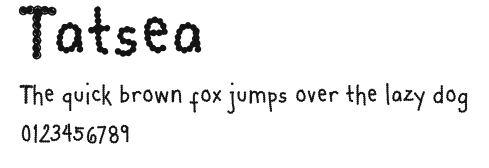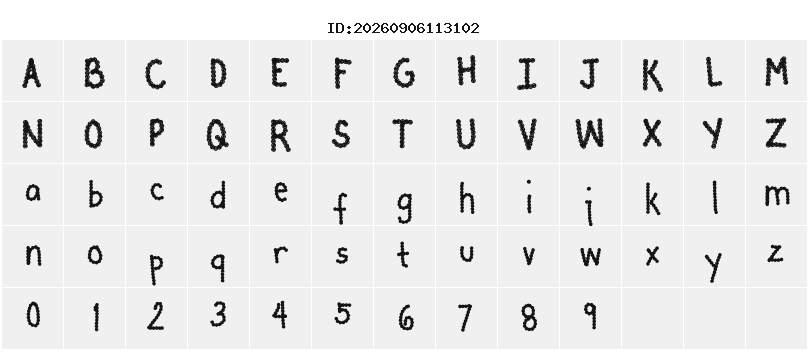
Tatsea Preview
• Font Name: Tatsea
• Full Font Name: Tatsea
• Description: This font was created using the online font generation service from yourfonts.com
About Tatsea.ttf
Tatsea.ttf is a modern, elegant sans-serif font designed for ultimate readability and visual harmony. Perfect for branding, headlines, web design, and print materials.